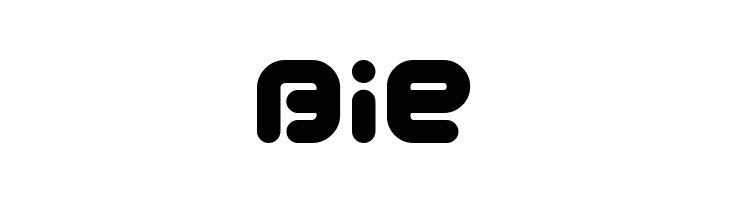
• Piss Off The Professor
A whimsical and playful font with decorative curves and swirls.
• PlatonickNF
A bold, geometric font with a futuristic and dynamic style.
• PocoUltra
A bold, rounded font with a futuristic and modern aesthetic.
• PocoUltraAl
A bold, rounded, and modern font with a futuristic appeal.
• PointsWestNF
A bold, elegant font with tall, narrow characters and decorative serifs.
• Polished Igneous
A bold, textured font with a rugged, stone-like appearance.
• PoopedEyes ExtraBold
A bold, playful font with thick, rounded edges and a whimsical style.
• Poopoo
An abstract, artistic font with irregular, distorted letterforms.
• popstarpop
A modern, geometric font with clean lines and rounded edges.
• popstarregular
A modern, geometric font with a sleek and futuristic style.